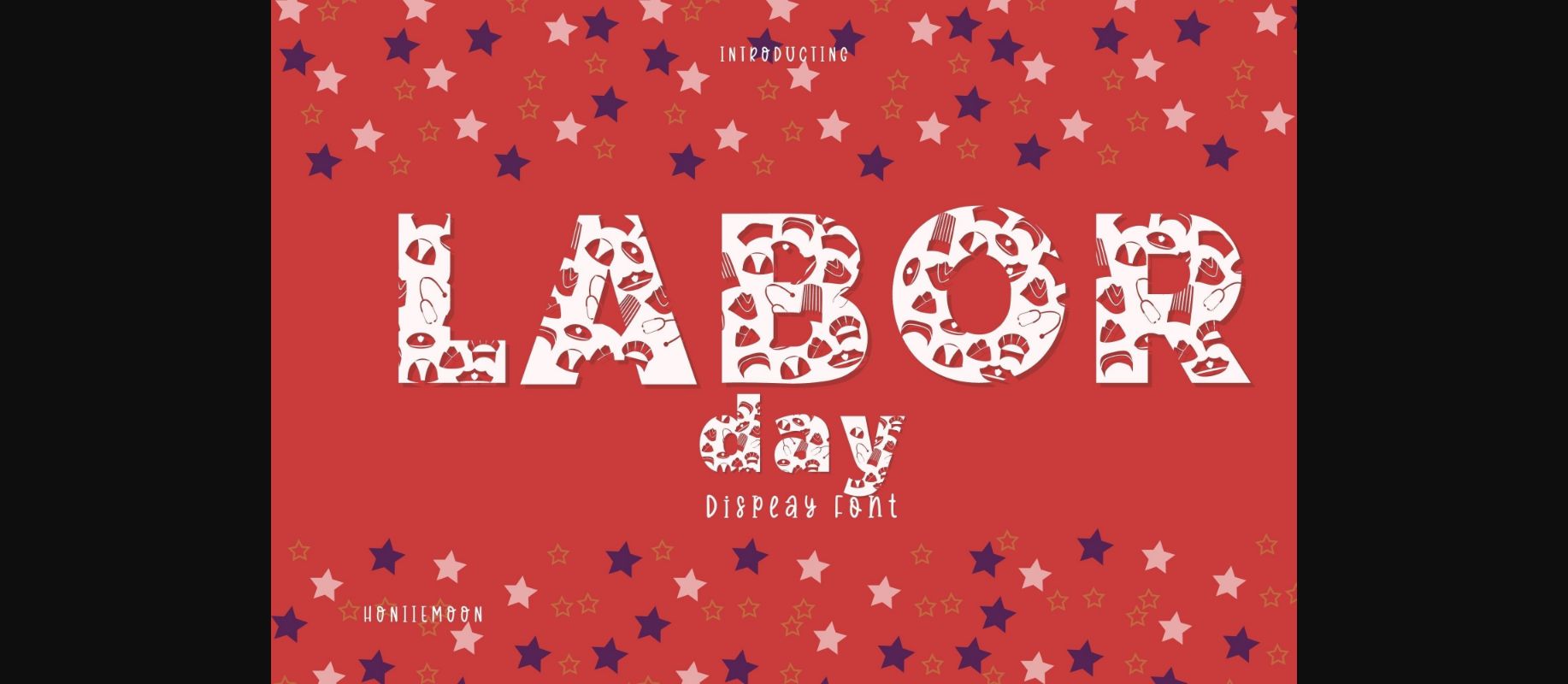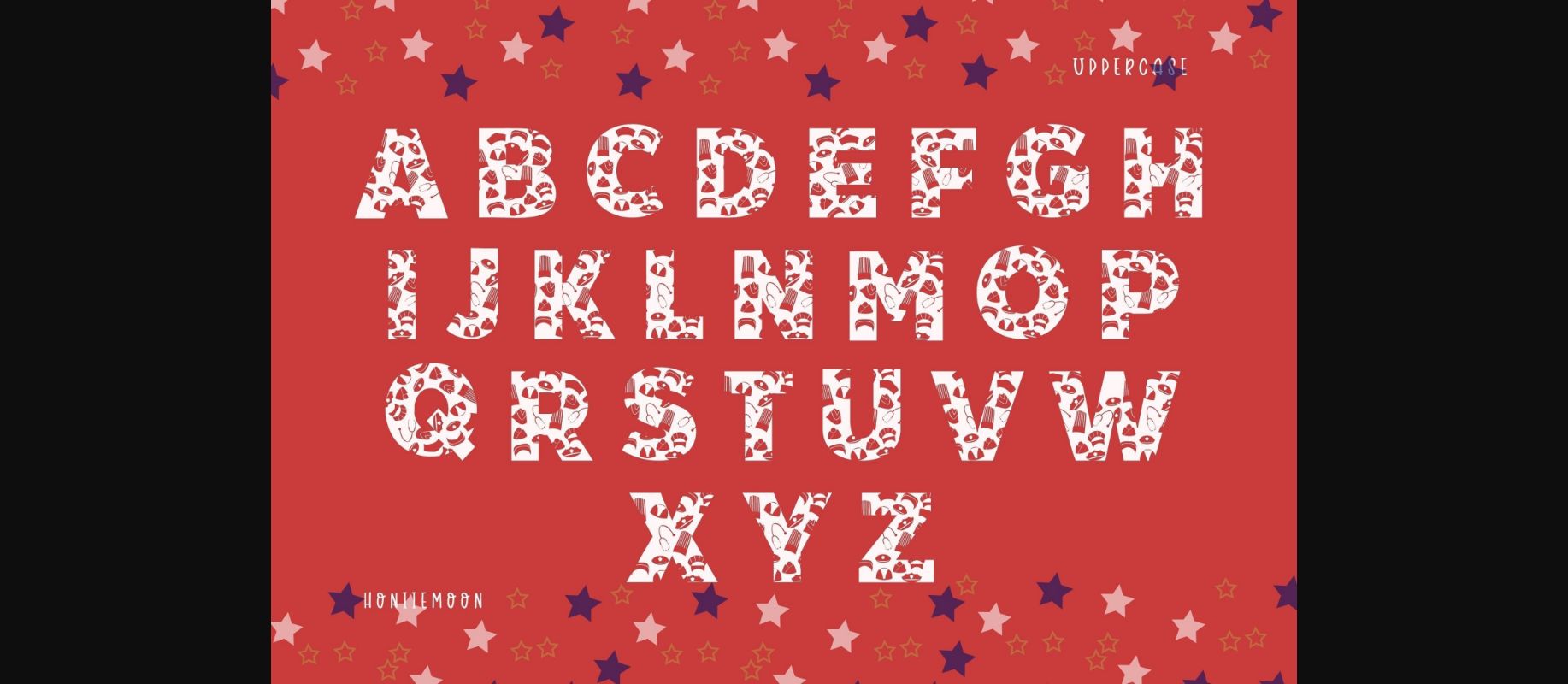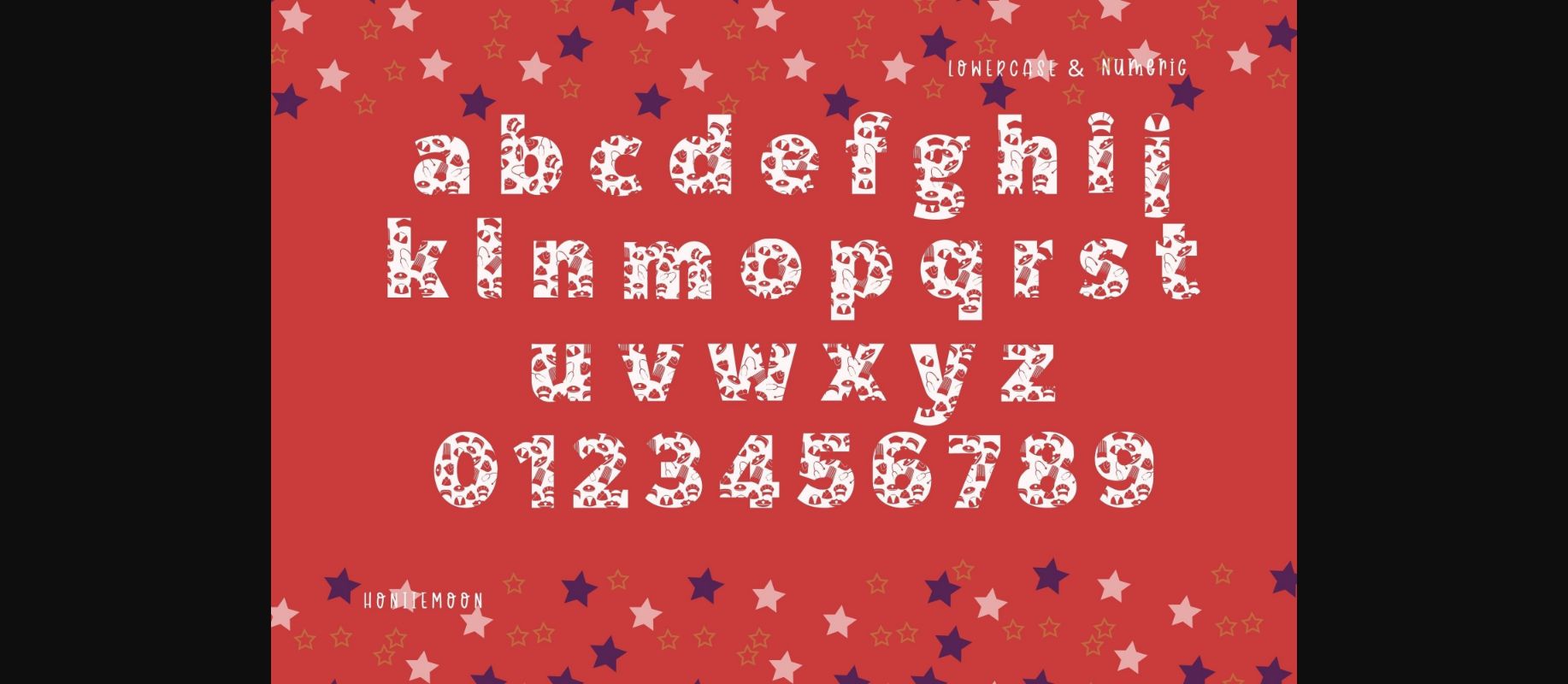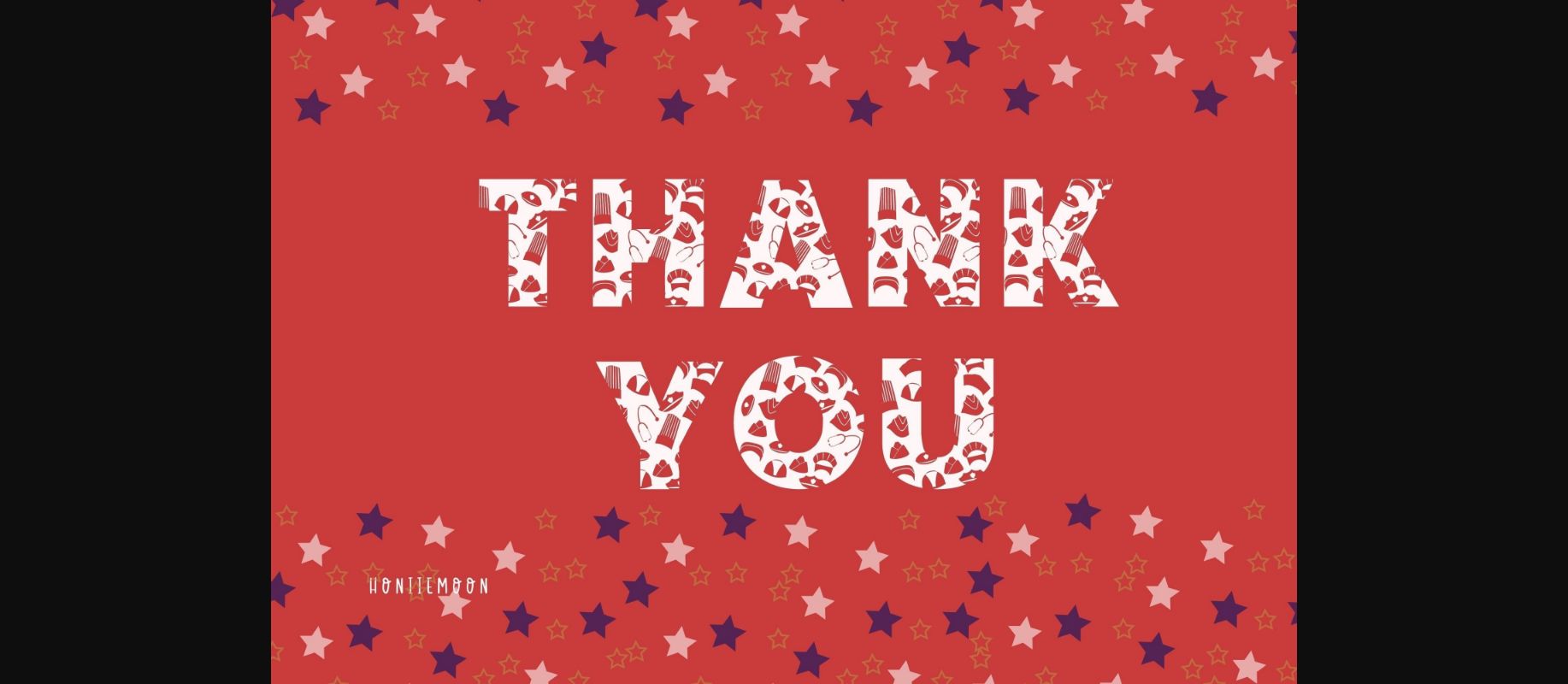
About Labor Day Font
Labor Day is a cool and fun decorative font. It looks cute and jolly, and it will enhance each of your designs. The only limit is your imagination. Add this colorful and bold font to each of your creative ideas and notice how it makes them come alive!